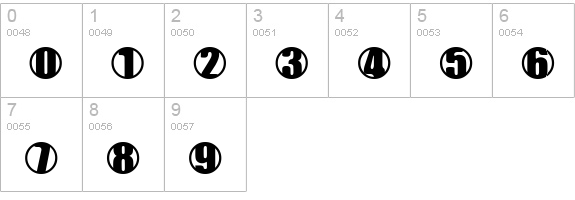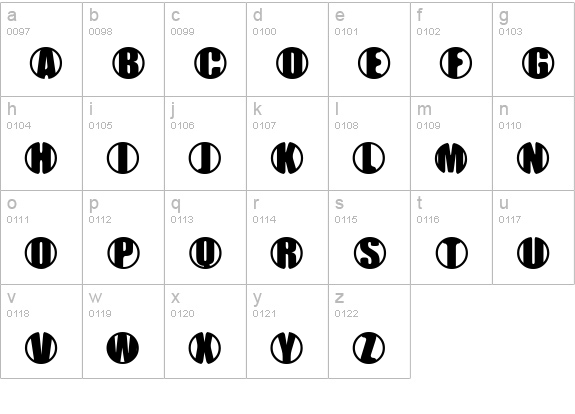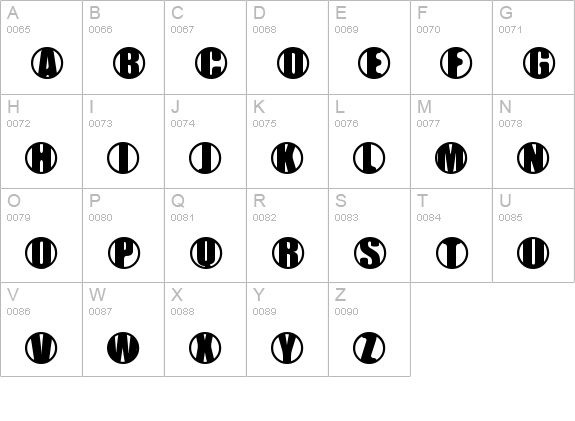
YChrome Contained Font Details
YChrome Contained font is a modern and stylish typeface designed to make your projects stand out. With its sleek lines and geometric shapes, this font exudes a contemporary and sophisticated vibe. YChrome Contained font is perfect for creating eye-catching headlines, logos, posters, and more. Its bold and distinctive look will make any design pop and grab the attention of your audience. And the best part is, YChrome Contained font is completely free to download at FontsMarket.com. Whether you're a designer looking to add a fresh touch to your work or a business owner seeking a unique branding solution, YChrome Contained font has you covered. Download it now and elevate your designs with this stunning typeface.